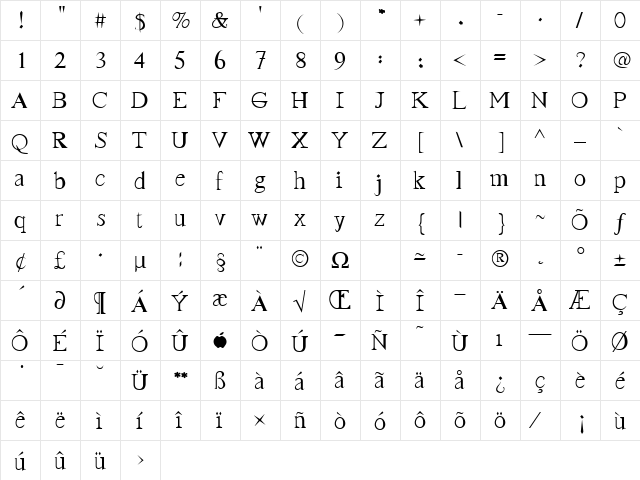
Design Context for FrankTimes Times:001.001 Typeface
FrankTimes Times:001.001 takes a measured approach to typography — its balanced proportions and neutral character make it a reliable workhorse for both digital and print work.
Pro Tip: Use FrankTimes Times:001.001 in both headline and body roles to test its range before committing to a single application.